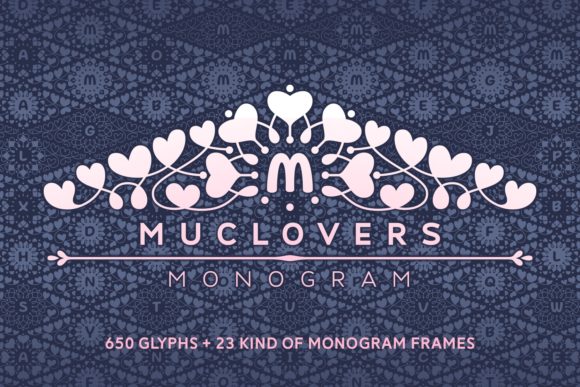
Unleash the Enchantment of Muclovers Font: A Stroke of Elegance for Your Creative Endeavors
In the realm of typography, where letters dance and words take flight, there exists a font that captivates hearts and ignites imaginations: Muclovers. This enchanting display font, crafted with meticulous care by the skilled hands of Situjuh, is a symphony of elegance and authenticity, a visual masterpiece that promises to transform your designs into works of art.
Muclovers possesses an inherent versatility that makes it the perfect companion for a myriad of creative projects. Whether you're crafting heartfelt greeting cards, expressing love through Valentine's crafts, or seeking to add a touch of magic to your next design, Muclovers rises to the occasion, leaving a trail of beauty and inspiration in its wake.
With Muclovers at your fingertips, you gain access to a treasure trove of stunning glyphs and swashes, effortlessly accessible through PUA encoding. This opens up a world of possibilities, allowing you to infuse your designs with intricate details and captivating flourishes. The font's wealth of special features, including alternate glyphs and ligatures, further enhances its versatility, providing endless opportunities for customization and artistic expression.
Step into the realm of enchantment with Muclovers. Let its elegant curves and authentic charm weave their magic, transforming your creative visions into captivating realities. Experience the joy of crafting designs that resonate with emotion, leaving a lasting impression on all who behold them. Embrace the power of Muclovers and unlock the gateway to a world of typographic wonders.